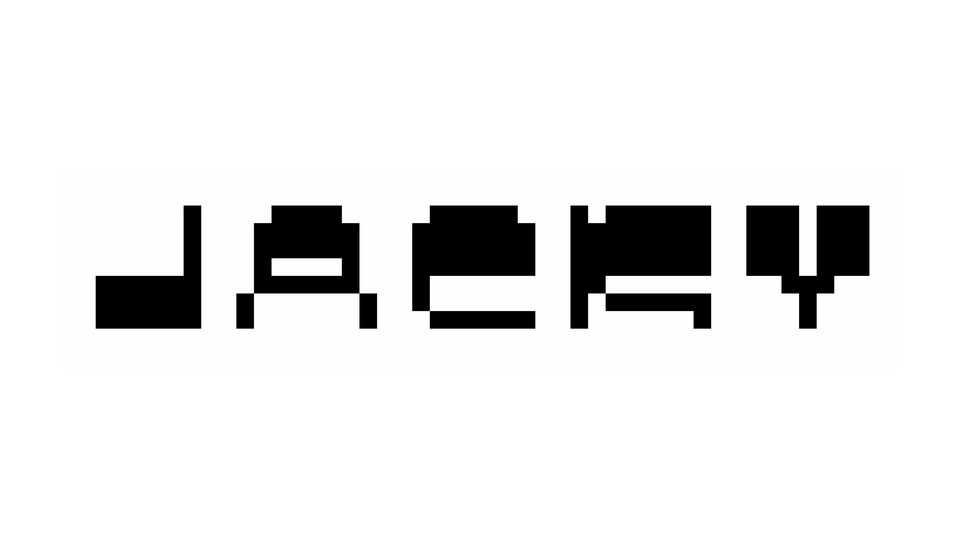
Jacky Font › Fontesk – Download Grátis
Download Jacky font, a reverse contrast pixel typeface with bold and unique personality. Jacky font is ideal for games, posters, graphics, works great in digital- and retro-themed projects.
Designer: Benoît Wimart